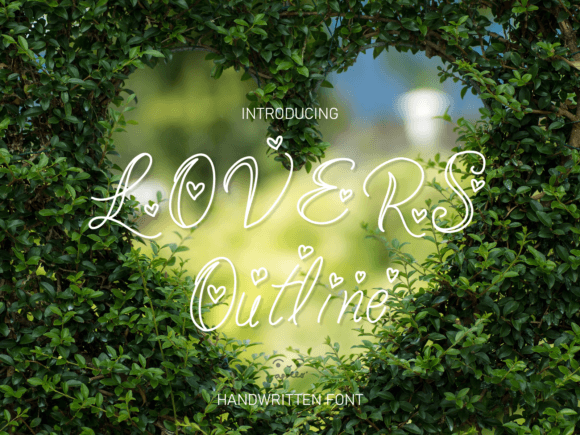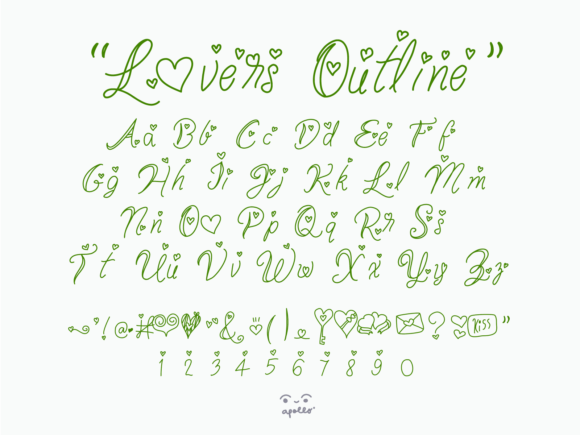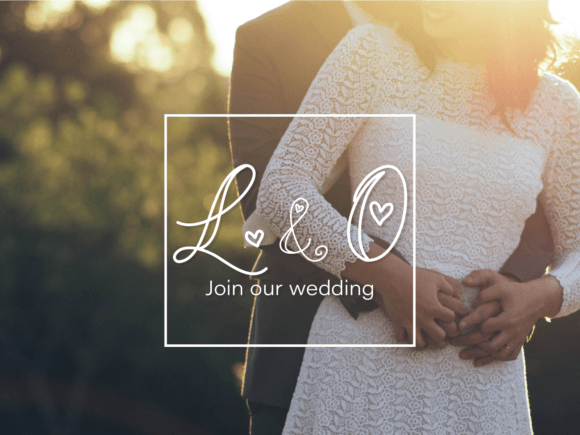
Lovers Outline Font Download – Sweet Handwritten Script
The Lovers Outline Font download is a sweet and charming handwritten typeface that adds personality and elegance to your creative projects. With its unique outline style and natural handwritten flow, this font feels authentic, approachable, and stylish. Whether you’re designing invitations, greeting cards, or branding projects, Lovers Outline ensures your work stands out with beauty and originality.
A Sweet and Unique Handwritten Style
The Lovers Outline Font download captures the warmth of natural handwriting while adding a creative outlined twist. Its smooth curves and thoughtful letterforms create a playful yet elegant look, making it ideal for projects that need both personality and style.
The Lovers Outline Font download is an excellent choice for wedding invitations, romantic cards, and event stationery. Its sweet handwritten appearance brings intimacy and creativity, ensuring that your designs leave a lasting impression on recipients.
Great for Logos and Branding
Typography defines the voice of a brand, and the Lovers Outline Font download works beautifully in logos, product packaging, and branding kits. Its natural look adds authenticity, while the outlined handwritten style ensures it feels fresh and unique across industries like fashion, lifestyle, and creative services.
Versatile for Posters and Creative Projects
From posters and wall art to social media graphics and quotes, the Lovers Outline Font download adapts seamlessly to a wide range of creative applications. Its charm and readability make it a reliable option for both print and digital designs.
Readability with Character
While some decorative fonts sacrifice clarity, the Lovers Outline Font download maintains excellent readability. Its neat structure and elegant flow keep your message easy to read while still showcasing a stylish handwritten character.
Why Choose Lovers Outline Font?
Among handwritten fonts, the Lovers OutlineFont download stands out thanks to its sweet outlined style, natural charm, and versatile usability. It is casual enough for DIY projects but also polished enough for professional design needs.
Add Sweet Charm to Your Projects
Typography influences how people feel about your work, and the Lovers OutlineFont download helps you add beauty, warmth, and originality. Whether for invitations, branding, or creative artwork, this font ensures your designs look stylish and full of character.